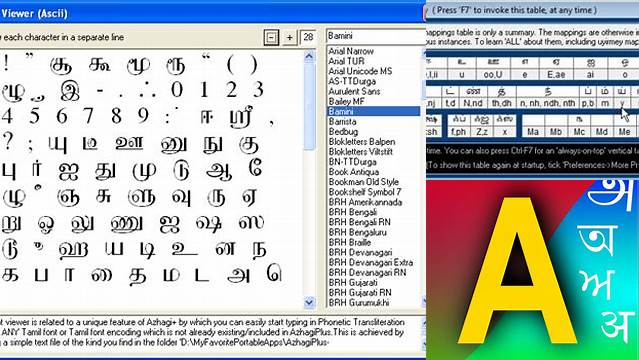
Azhagi Tamil Font has become a staple for anyone looking to type in Tamil. It's user-friendly and offers a wide range of features, making it a popular choice for writers, designers, and everyday users. The fact that you can get the Azhagi Tamil Font free download full version is a major draw. But what does this mean? And how do you make the most of this powerful tool? This guide will explore everything you need to know about Azhagi, from downloading and installing it to using it effectively. Let's dive in and make sure you're equipped with all the knowledge to start typing in Tamil!
Unveiling Azhagi: Your Gateway to Tamil Typing
Azhagi Tamil Font is more than just a font; it's a complete typing solution. It's designed to make typing in Tamil easy and intuitive, even if you're not familiar with the Tamil script. The software offers various input methods, including transliteration, which allows you to type Tamil words phonetically using the English keyboard. This feature is incredibly helpful for beginners and those who find it challenging to memorize the Tamil keyboard layout. Moreover, Azhagi supports multiple Tamil fonts, giving you plenty of options to choose from based on your design or personal preference. The software has a user-friendly interface, and its straightforward approach makes it suitable for users of all skill levels. The Azhagi Tamil Font free download full version ensures you get access to all these features without any restrictions. Azhagi also supports various input methods, including a built-in Tamil keyboard layout, which enables experienced users to type directly in Tamil without needing to switch between English and Tamil scripts. In short, Azhagi is designed to be a versatile tool for anyone wanting to type in Tamil. This includes students writing assignments, professionals creating presentations, and anyone communicating with others in Tamil. Understanding its features and capabilities is the first step to using this valuable software effectively. By taking the time to learn about the different features available, you can maximize the benefits of the Azhagi Tamil Font free download full version, which makes it possible to type in Tamil with ease.
Key Features and Benefits of Azhagi
The Azhagi Tamil Font is packed with features that make typing in Tamil easy and enjoyable. One of the key benefits is its transliteration feature, which allows you to type Tamil words using the English alphabet. This feature is perfect for those unfamiliar with the Tamil keyboard layout, enabling them to type Tamil phonetically. Another significant advantage is the software's extensive support for various Tamil fonts. This allows users to select the font that best suits their needs, whether for professional documents or creative projects. The Azhagi Tamil Font free download full version often includes options for spell-checking and auto-correction. These tools can significantly improve the quality and accuracy of your Tamil writing. Furthermore, the software often provides a user-friendly interface that simplifies the typing process. The intuitive design makes it easy for both beginners and experienced users to navigate and use the software. Many versions of Azhagi also include keyboard layout customization options, allowing users to tailor their typing experience to their preferences. This flexibility ensures that users can optimize the software for their individual needs, whether they need a specific layout for efficiency or preferred fonts for visual appeal. By taking advantage of these features, users can enhance their Tamil typing skills and productivity. The ability to choose the right font, quickly correct errors, and type intuitively makes Azhagi an invaluable tool for anyone wanting to type in Tamil. This level of customization and flexibility helps you produce high-quality Tamil content effortlessly.
Mastering the Azhagi Interface: A User's Guide
Understanding the Azhagi Tamil Font interface is key to unlocking its full potential. The software generally features a clean and intuitive interface that helps make typing in Tamil easy. Typically, you'll find options to select your preferred Tamil font and input method on the main screen. These settings can usually be changed and customized to suit individual preferences and typing needs. Many versions also include a real-time transliteration feature that converts English characters to Tamil characters as you type. This feature allows users to focus on their content without worrying about the nuances of Tamil script. Moreover, the interface commonly includes tools such as a spell checker and auto-correction. These features are invaluable for improving the accuracy of your writing. The ability to quickly identify and correct typing errors saves time and enhances the overall quality of your content. To make the most of the software, it's useful to explore the different menus and options available. The software often includes various customization options for keyboard layouts and other preferences. By exploring these features, you can tailor the software to meet your specific typing requirements. By familiarizing yourself with the interface, you can streamline your Tamil typing process and improve your overall productivity. If you are just getting started, take the time to explore these options to familiarize yourself with the functions of the Azhagi Tamil Font free download full version.
Setting Up Your Typing Preferences in Azhagi
Customizing your typing preferences in Azhagi Tamil Font ensures that you have a smooth and efficient typing experience. One of the first things you'll want to do is select your preferred Tamil font. Azhagi offers a variety of fonts, and the right choice can significantly impact the readability and aesthetics of your text. Next, you'll need to choose your input method. The most common option is transliteration, which allows you to type Tamil using the English alphabet. This method is very user-friendly, especially for beginners. For experienced users, Azhagi also offers support for direct Tamil typing using a Tamil keyboard layout. In addition to font and input method selections, you can usually adjust other settings. These settings might include auto-correction and spell-checking, which can streamline your typing process and reduce errors. Furthermore, many users find it helpful to customize keyboard shortcuts. Keyboard shortcuts provide quick access to often-used functions, such as switching between languages or changing the font size. It is a great way to improve your efficiency. Azhagi also often allows for the adjustment of keyboard layouts. This means you can configure the keyboard to match your personal typing style and preferences. By customizing these settings, you can create a personalized typing experience. The Azhagi Tamil Font free download full version provides you with complete control over your typing settings, allowing you to type comfortably.
Azhagi and Tamil Fonts: Exploring the Options
Azhagi Tamil Font provides a gateway to a wide selection of Tamil fonts, making it easy for users to find the perfect fit for their creative and professional needs. When using Azhagi, you're not limited to a single font; rather, you have access to a variety of styles and designs. This feature allows you to customize your text appearance and ensure that it aligns with your project requirements. The availability of different fonts allows you to experiment with various looks and feels, whether you're writing a formal document, designing a creative project, or simply chatting with friends. Each font offers unique characteristics, from traditional styles to modern designs. This diversity allows you to express your creativity and personalize your text. The software commonly supports a variety of fonts, giving you the freedom to choose the perfect font to reflect your message. Azhagi’s font selection includes both classic and modern options. From the elegant and readable fonts often used in professional documents to more decorative options for creative projects. When you get the Azhagi Tamil Font free download full version, you gain a lot of flexibility in the appearance of your text.
Choosing the Right Tamil Font for Your Needs
Selecting the ideal Tamil font is a crucial aspect of any Tamil-typing project. The Azhagi Tamil Font enables you to choose the best font based on your particular needs. For formal documents, it’s best to use a clean and readable font. Fonts like Latha or TSCu_SaiPrasanna are good options as they are designed for clarity and ease of reading. In contrast, if you’re working on a creative project, you may consider using a more expressive font. Fonts like Anjalai or Bamini offer a distinct look and add a touch of personality to your text. When choosing a font, always think about the context of your text. Consider the target audience and the message you want to convey. Some fonts are more appropriate for certain purposes than others. Another key consideration is readability. It’s essential to choose a font that is easy to read, especially in long-form content. Consider font size and spacing to enhance readability. Lastly, try out different fonts to see which one looks best for your needs. You can preview fonts in Azhagi’s interface before committing to them. The Azhagi Tamil Font free download full version offers a variety of options so you can experiment and discover the perfect font.
Popular Tamil Fonts Supported by Azhagi
The Role of Azhagi in the Digital Age
Azhagi Tamil Font plays a critical role in promoting Tamil literacy and cultural preservation in the digital age. Azhagi empowers individuals to use the Tamil language effortlessly in the digital world. Azhagi makes it easier to communicate. Its availability and ease of use ensures that people can easily create and consume Tamil content online. Azhagi helps in the cultural preservation of the Tamil language. It helps to preserve Tamil culture. It also allows Tamil speakers around the world to stay connected. By making Tamil typing accessible, Azhagi helps in the growth of Tamil literature. Azhagi is an important tool for writers, students, and all Tamil enthusiasts. The Azhagi Tamil Font free download full version helps to safeguard the Tamil language. Azhagi's contribution to Tamil typing is essential. It is a tool in the promotion of the language.